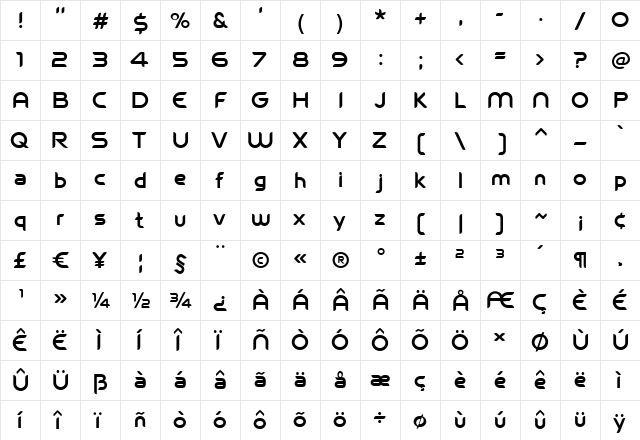
WelcomeXpdf Regular
Design Context for WelcomeXpdf Typeface
WelcomeXpdf takes a measured approach to typography — its balanced proportions and neutral character make it a reliable workhorse for both digital and print work.
Pro Tip: Use WelcomeXpdf in both headline and body roles to test its range before committing to a single application.